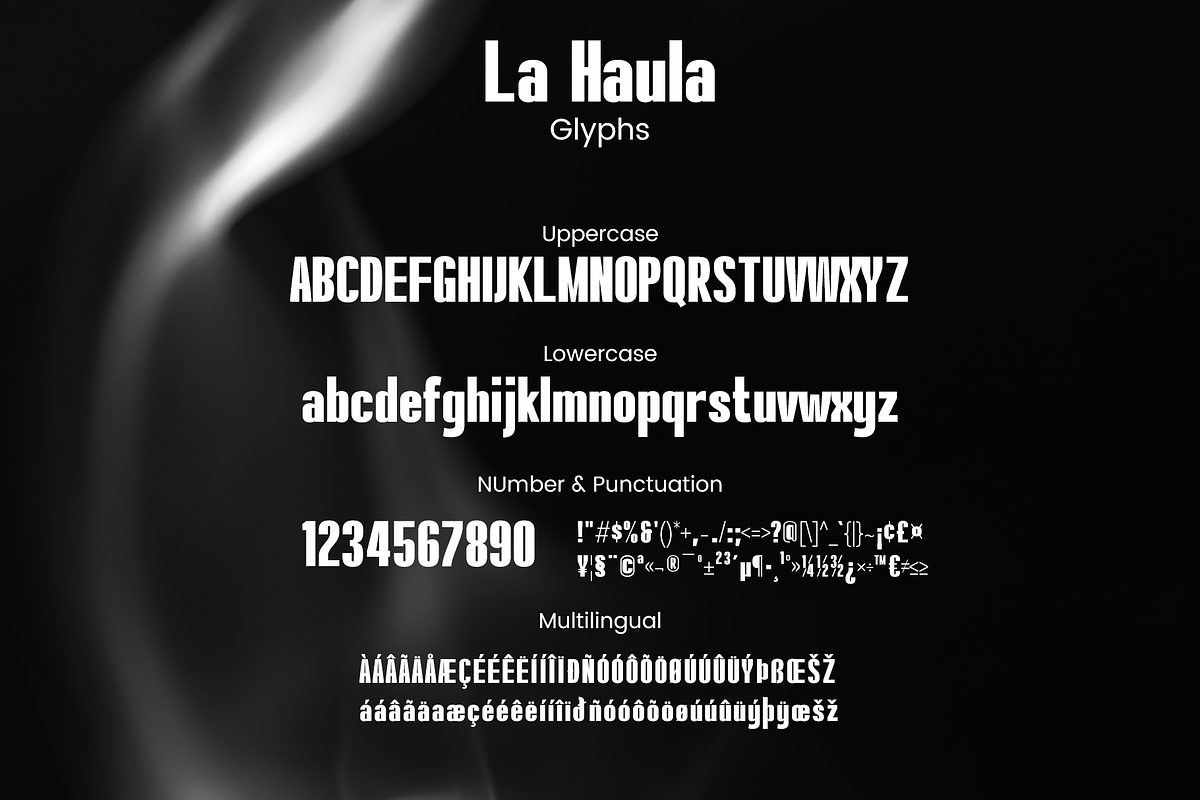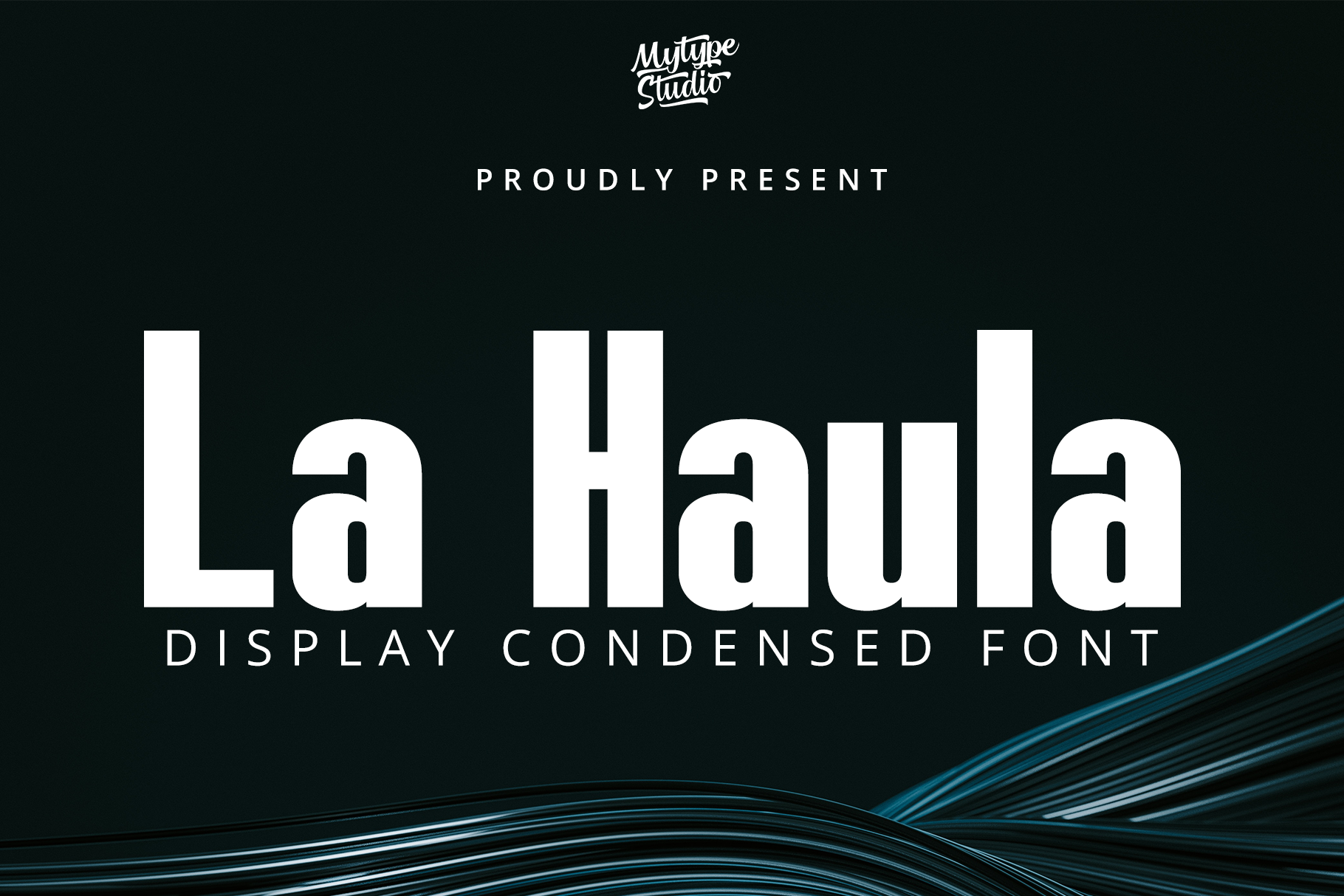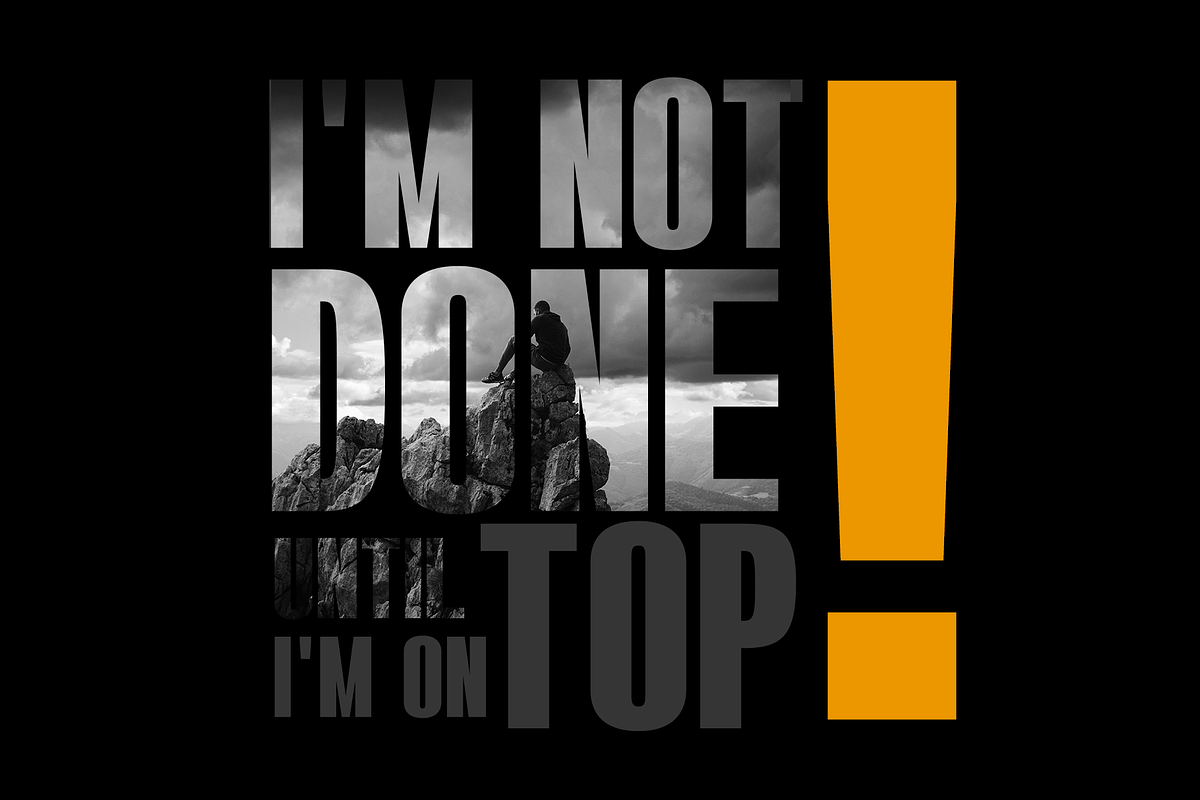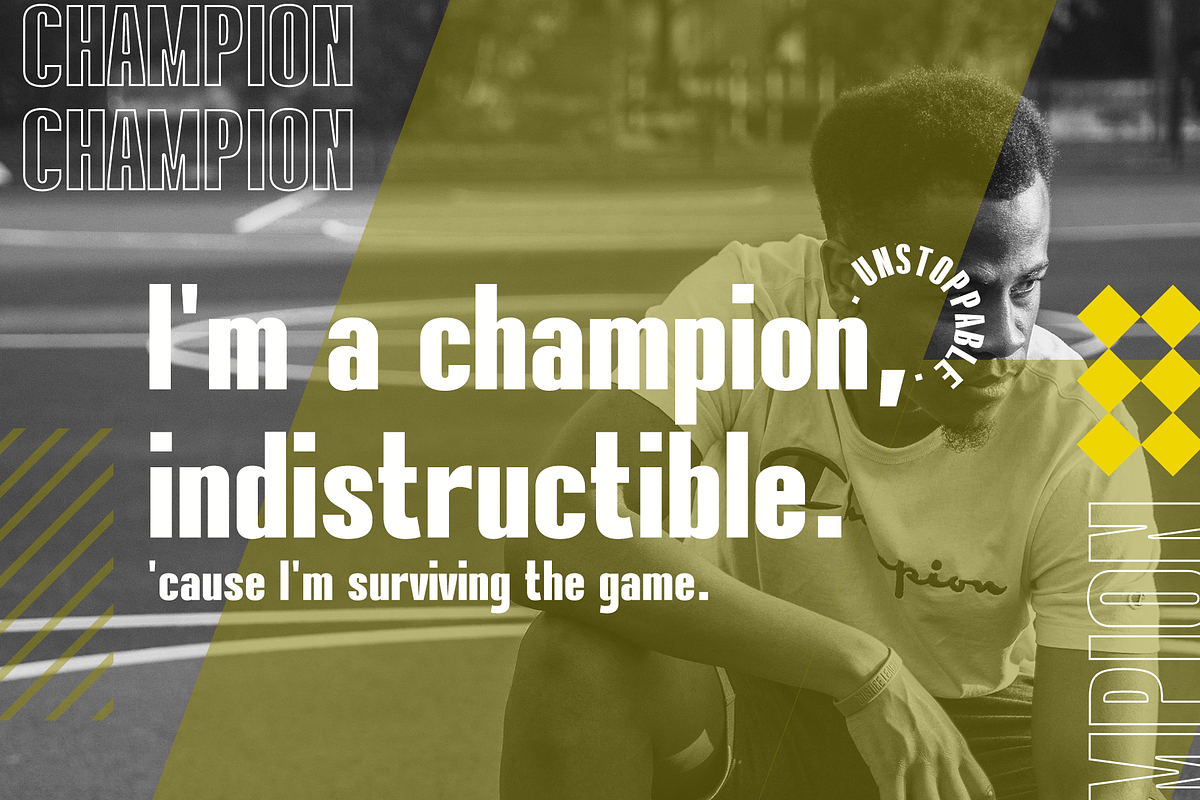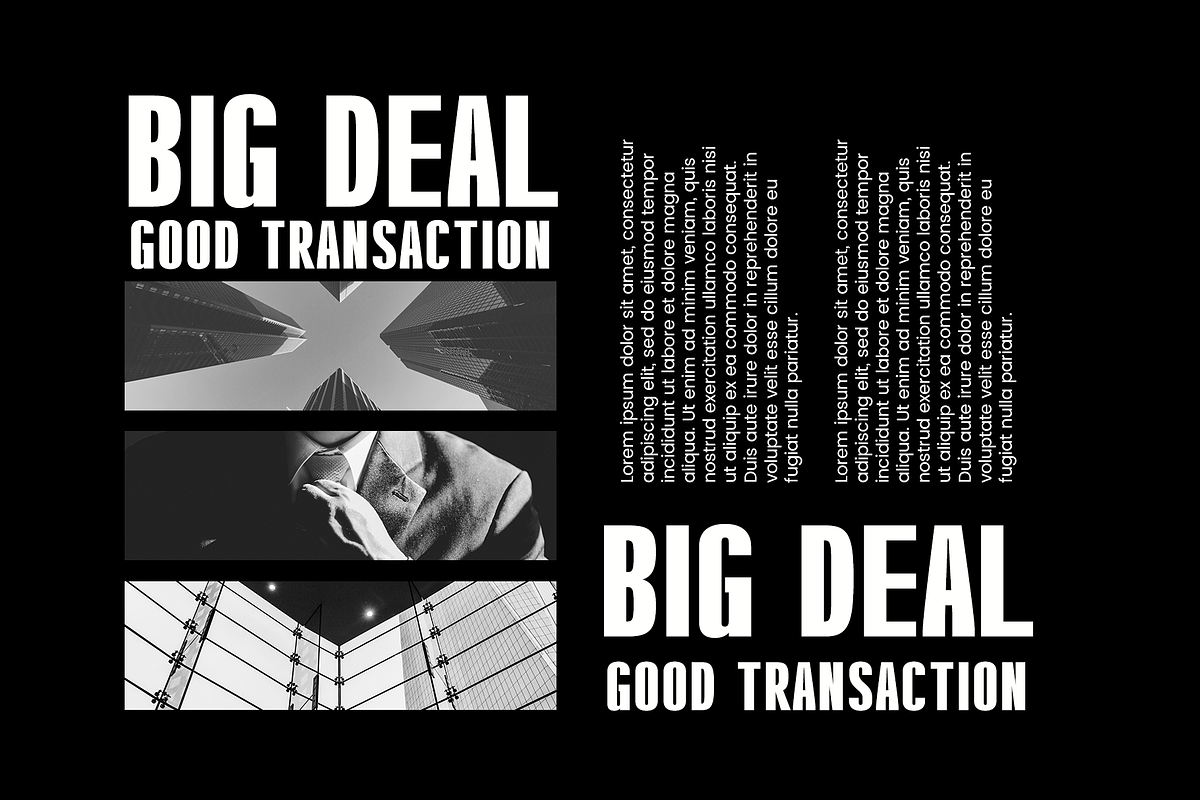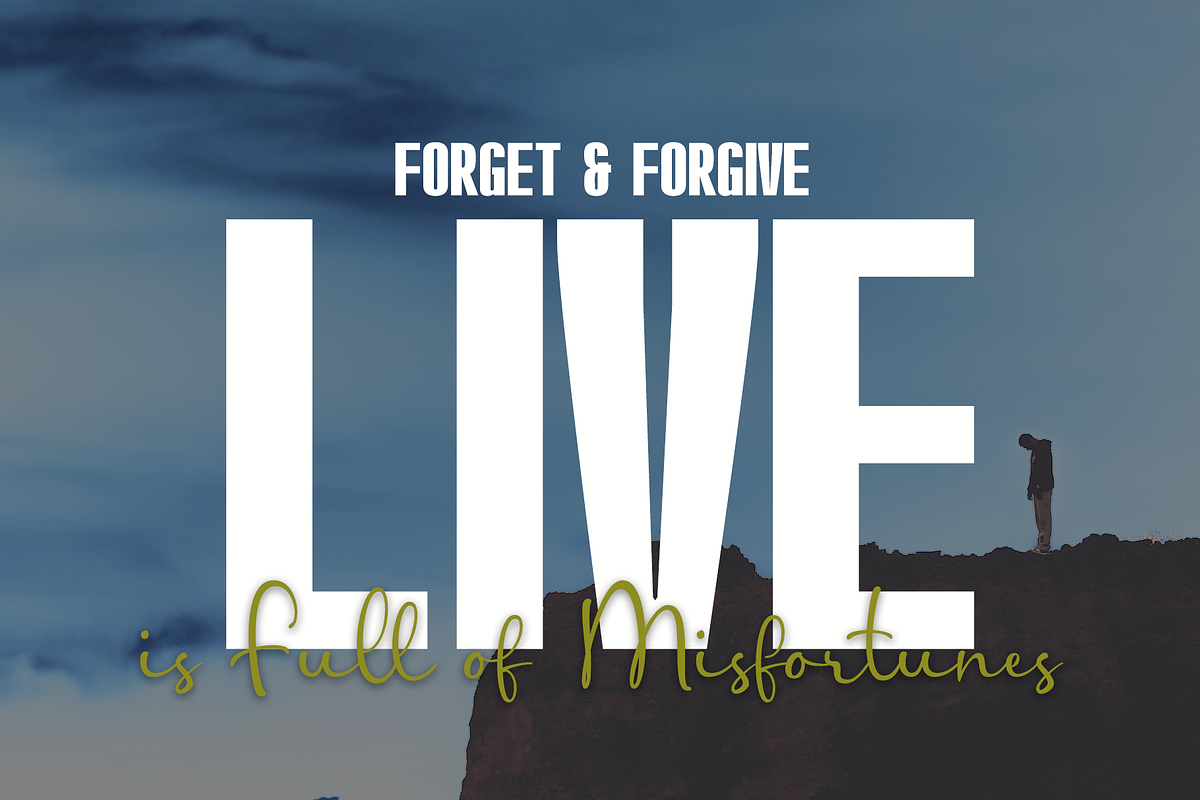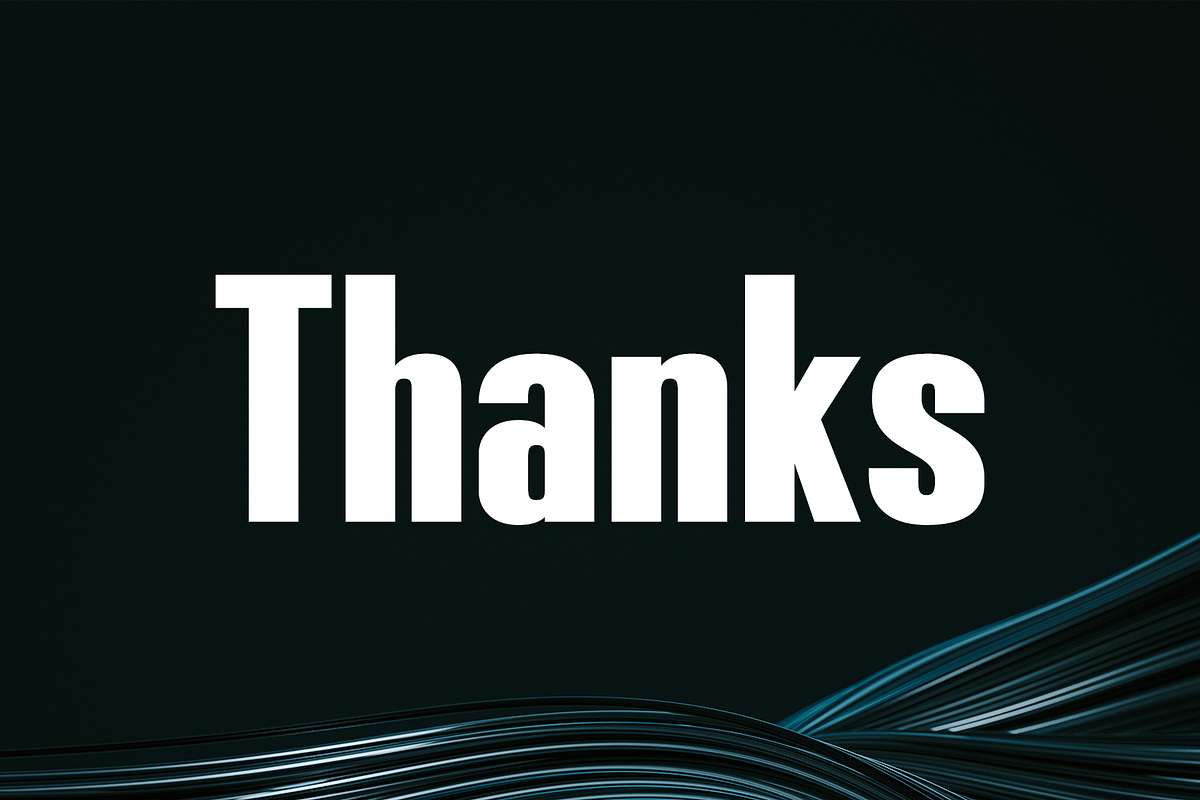
La Haula - Display Condensed Font
La Haula is a condensed sans-serif typeface created to be used for bold titles with distinctive shapes into a display fonts way to make it legible for contemporary use.This Font boasts three distinct styles - Bold, Condensed, and Monospace - each tailored to cater to your varied design needs.